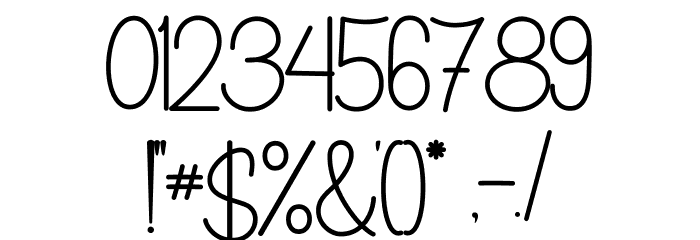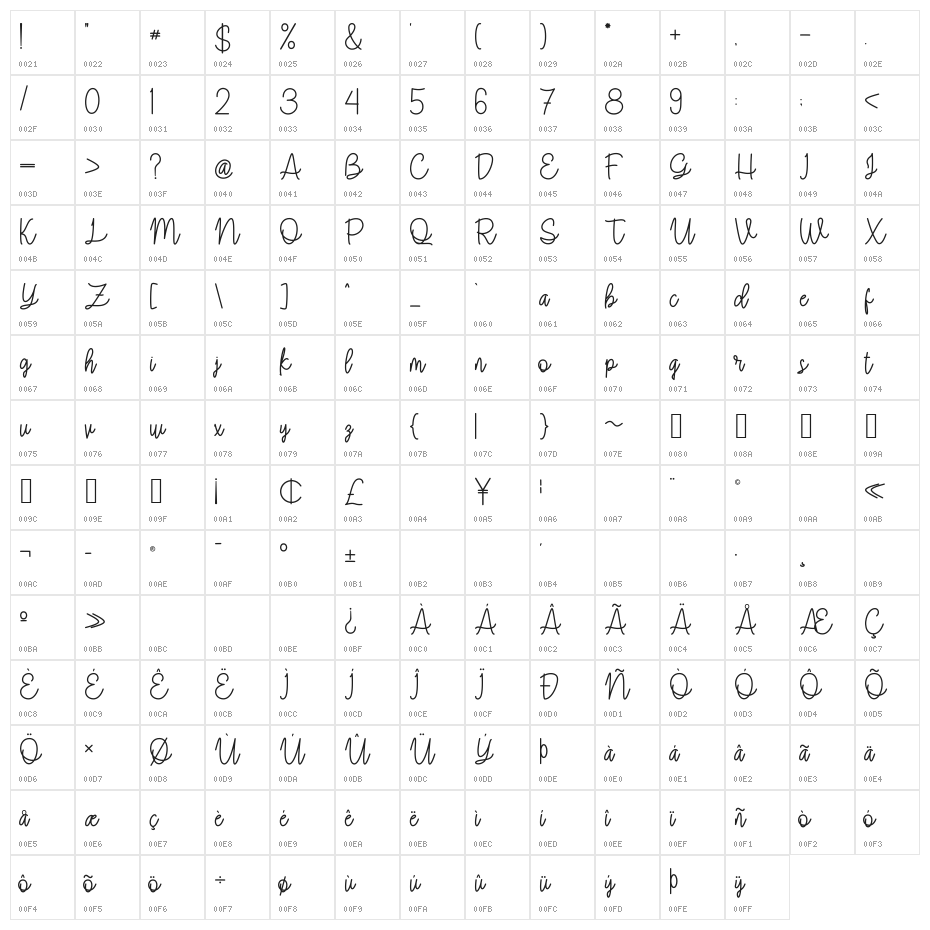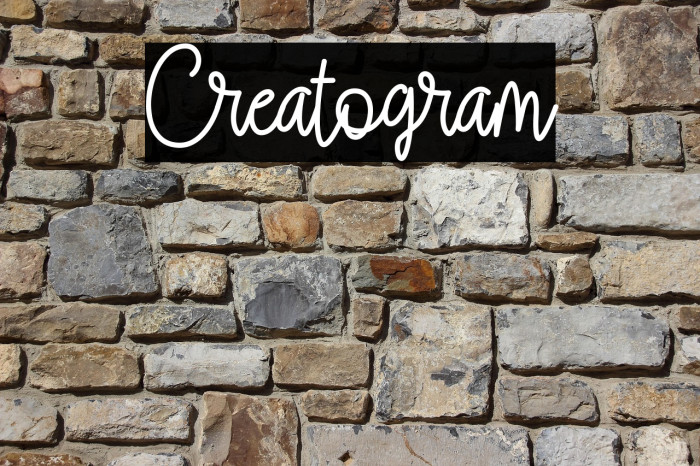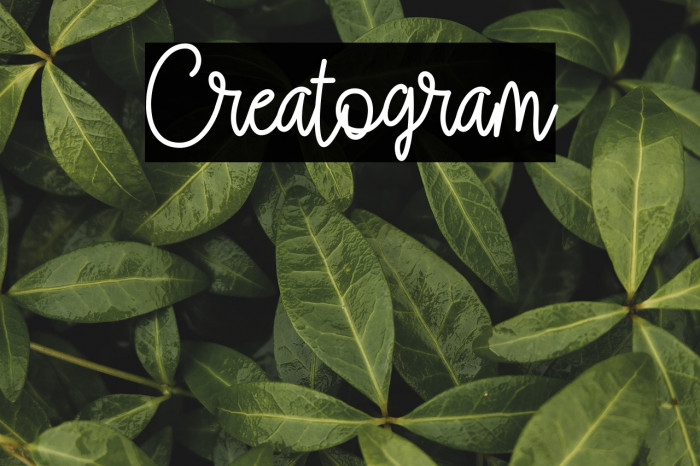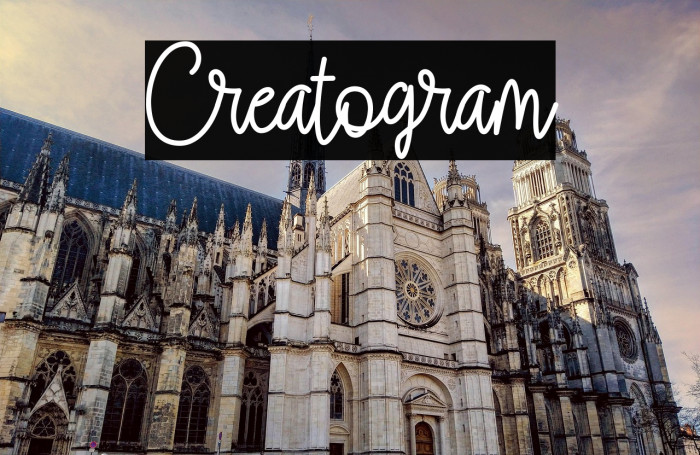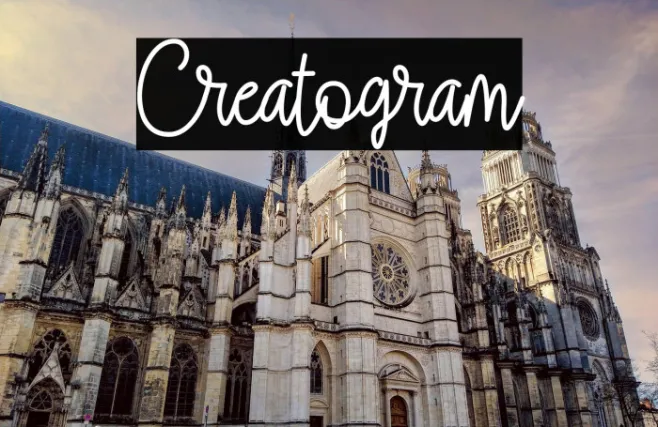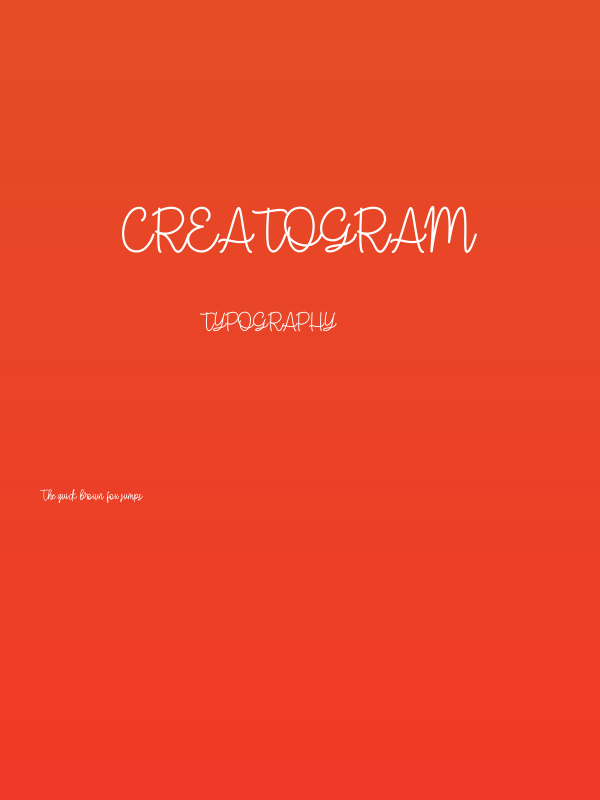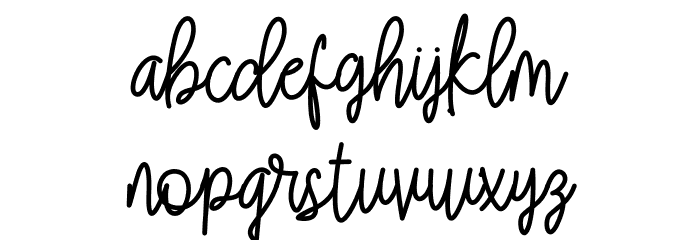
Creatogram Font
Creatogram Description
This font features a playful and casual handwritten style, characterized by its fluid and connected strokes. The uppercase letters are tall and slightly narrow, with a consistent flow that mimics natural handwriting. The lowercase letters maintain a similar style, offering a cohesive look throughout. Numbers are rounded and easy to read, while the special characters retain the same playful aesthetic. This font exudes a friendly and approachable vibe, making it suitable for a variety of creative projects.
| Proposed Projects | Ideal for greeting cards, invitations, personal branding, and social media graphics. |